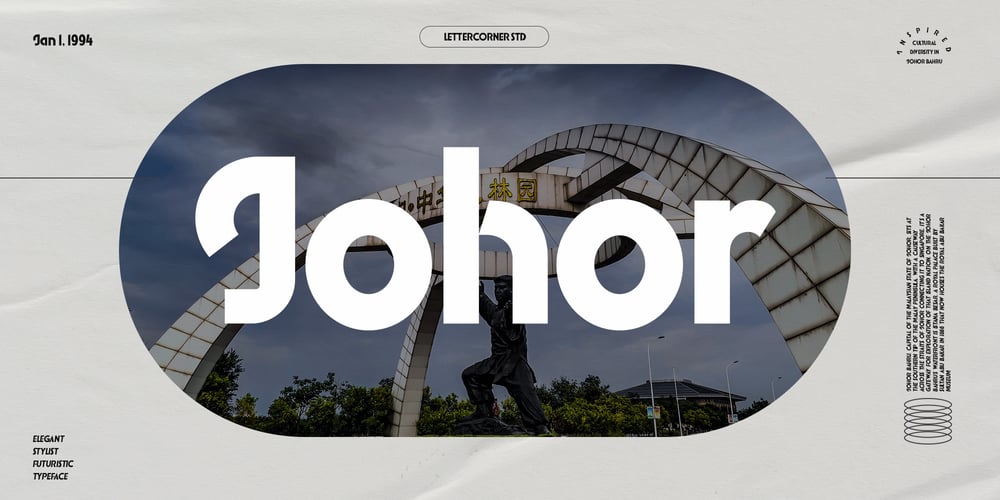
Johor Font Family was designed by Muhammad Afif Ersya and published by Mevstory Studio. Johor contains 2 styles and family package options. Johor is a Modern sans serif -inspired sans serif display font – perfectly suited for any design that requires a timeless aesthetic with a little personality.This product features an extensive set of ligatures which will help your typography stand out, as well as multilingual support to maximize the applications.